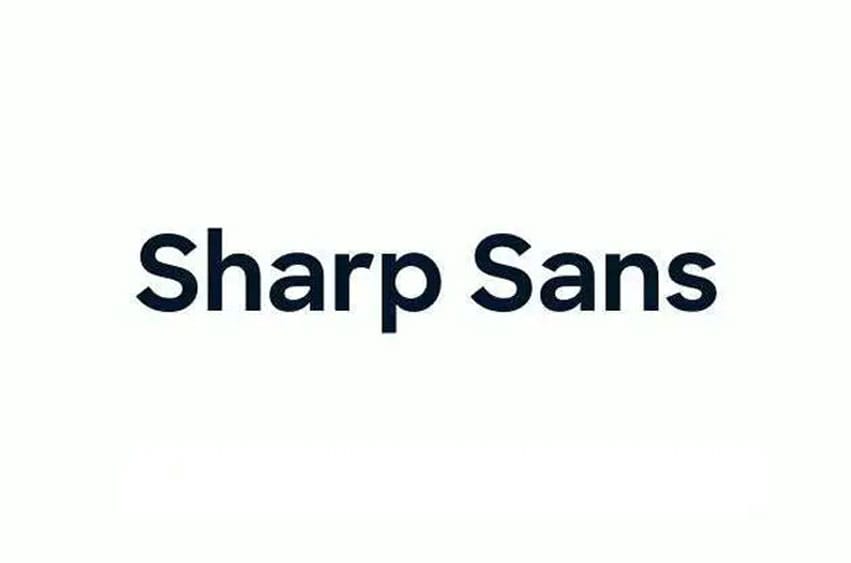
Sharp Sans Font is a striking sans serif typeface with seven weights ranging from thin to seven styles, designed to look impressive in any context.
Within its sleek shapes there are carefully crafted design elements. Sharp Sans exudes understated elegance in its perfection. Designed for practicality this font is our choice for almost any use.